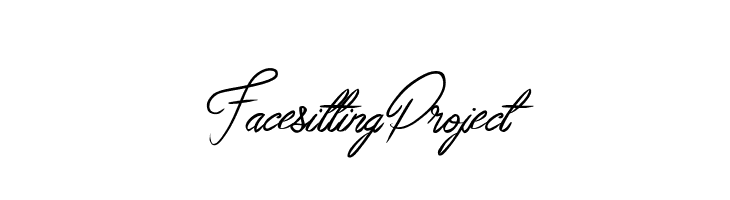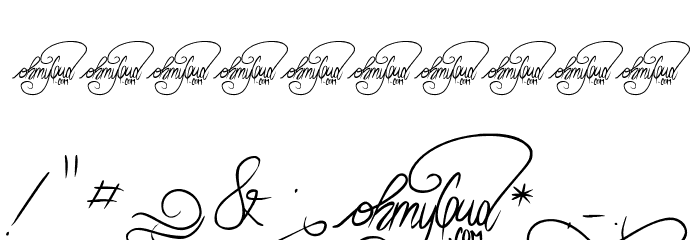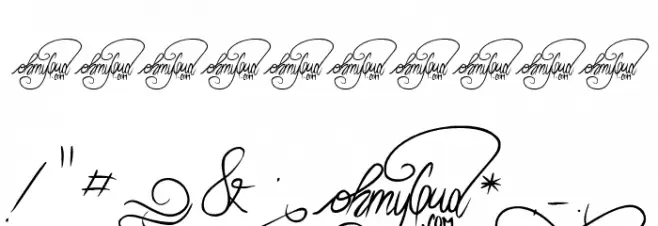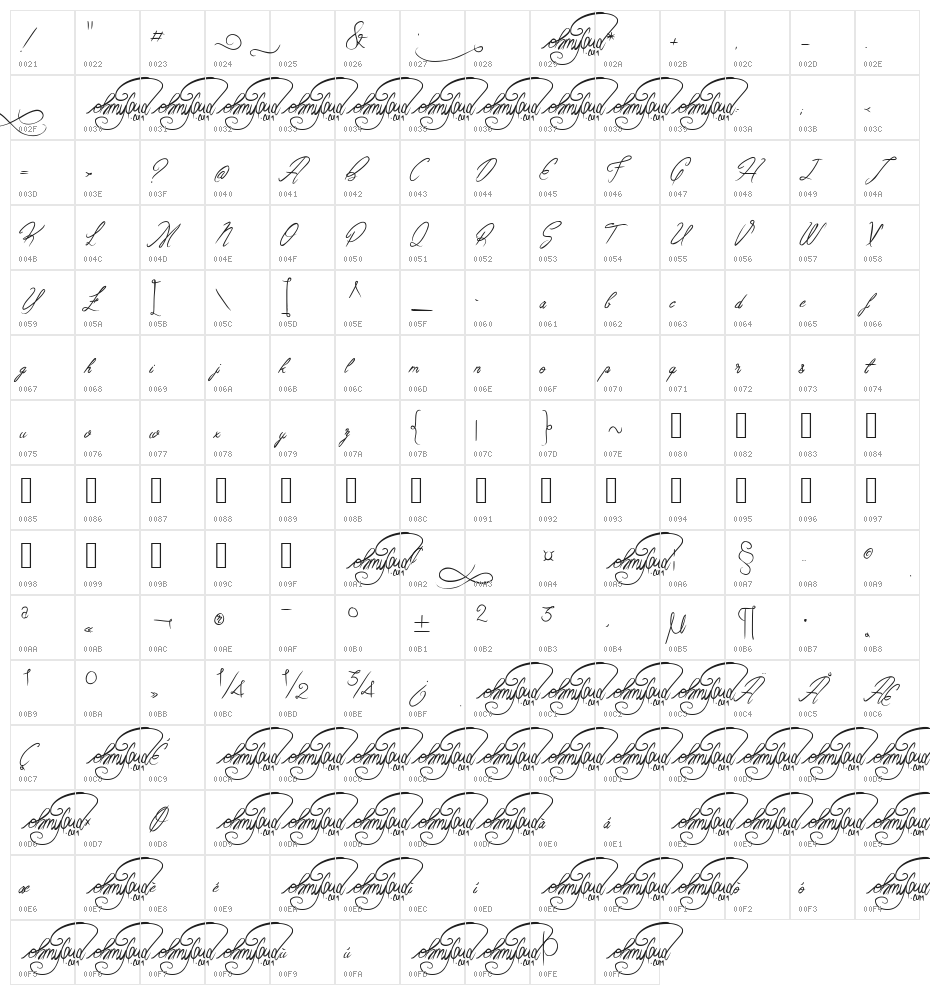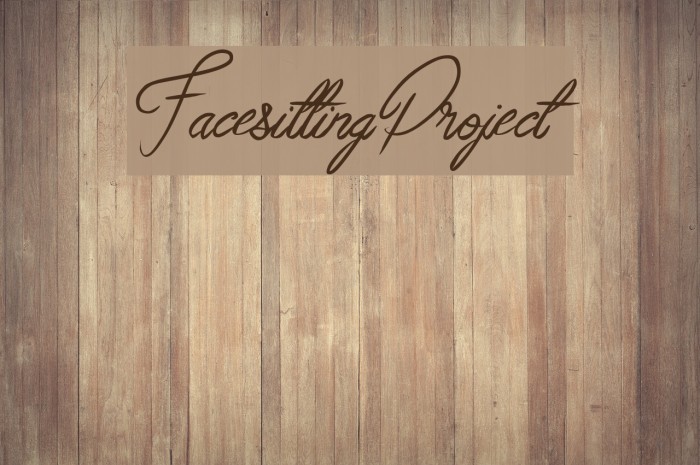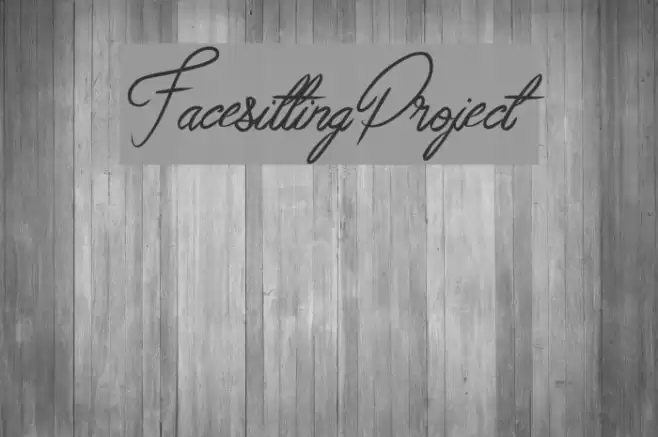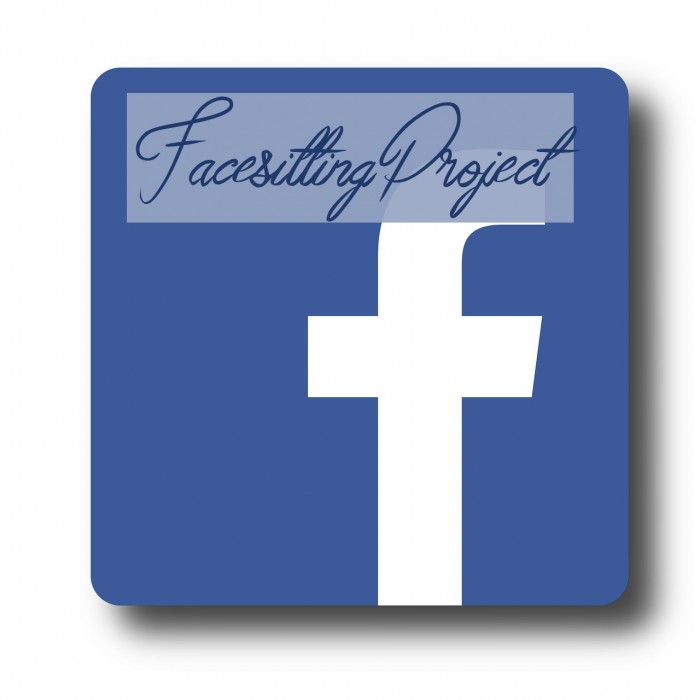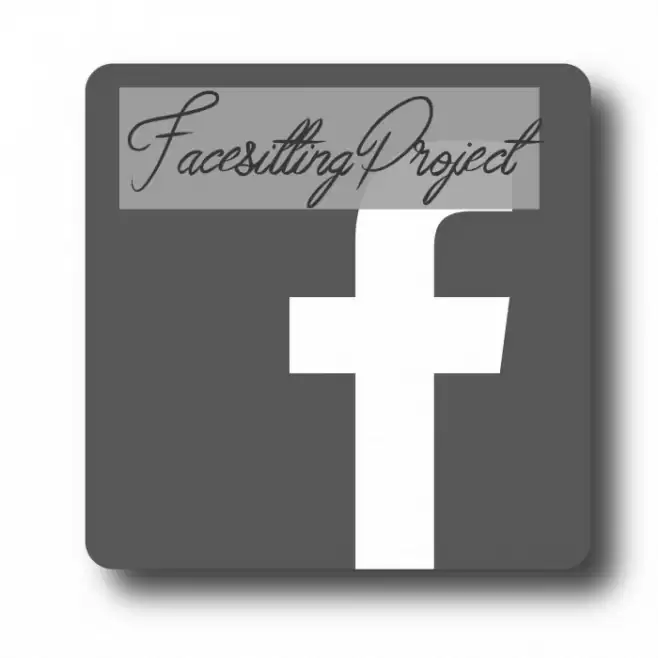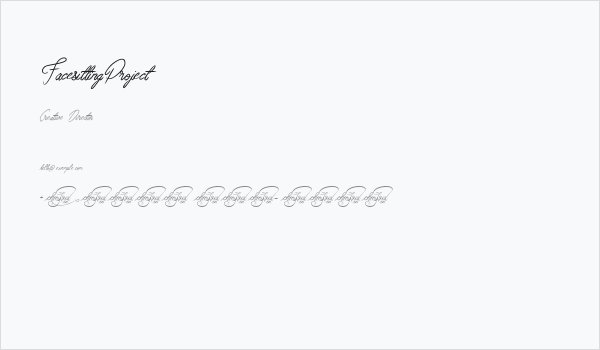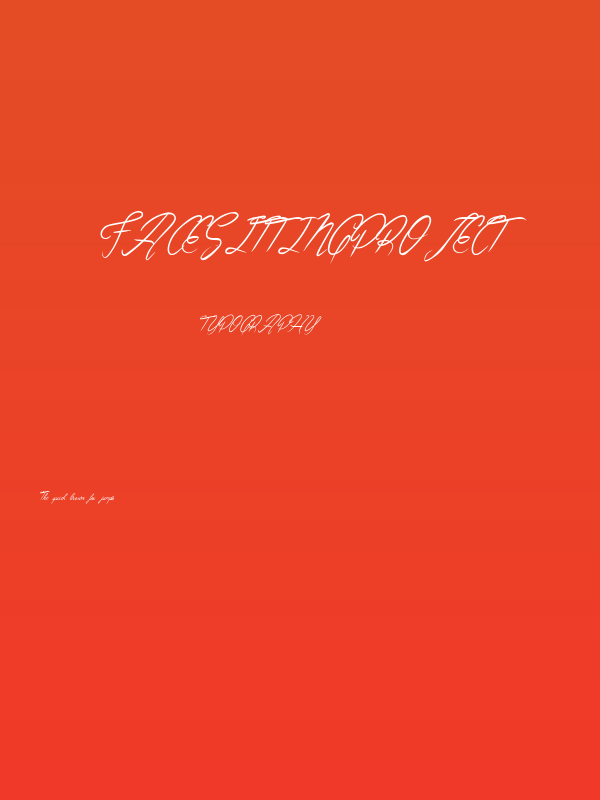
FacesittingProject Font
FacesittingProject Description
This elegant script font features flowing, interconnected letters that exude a sense of sophistication and grace. The uppercase letters are particularly ornate, with sweeping curves and flourishes that give them a decorative appearance. The lowercase letters maintain a consistent style, with smooth, fluid lines that enhance readability while retaining the font's artistic flair. The numbers and special characters are designed to match the overall aesthetic, ensuring a cohesive look across all text elements. This font is ideal for projects that require a touch of elegance and refinement.
| Proposed Projects | Wedding invitations, luxury branding, elegant stationery, high-end product packaging. |